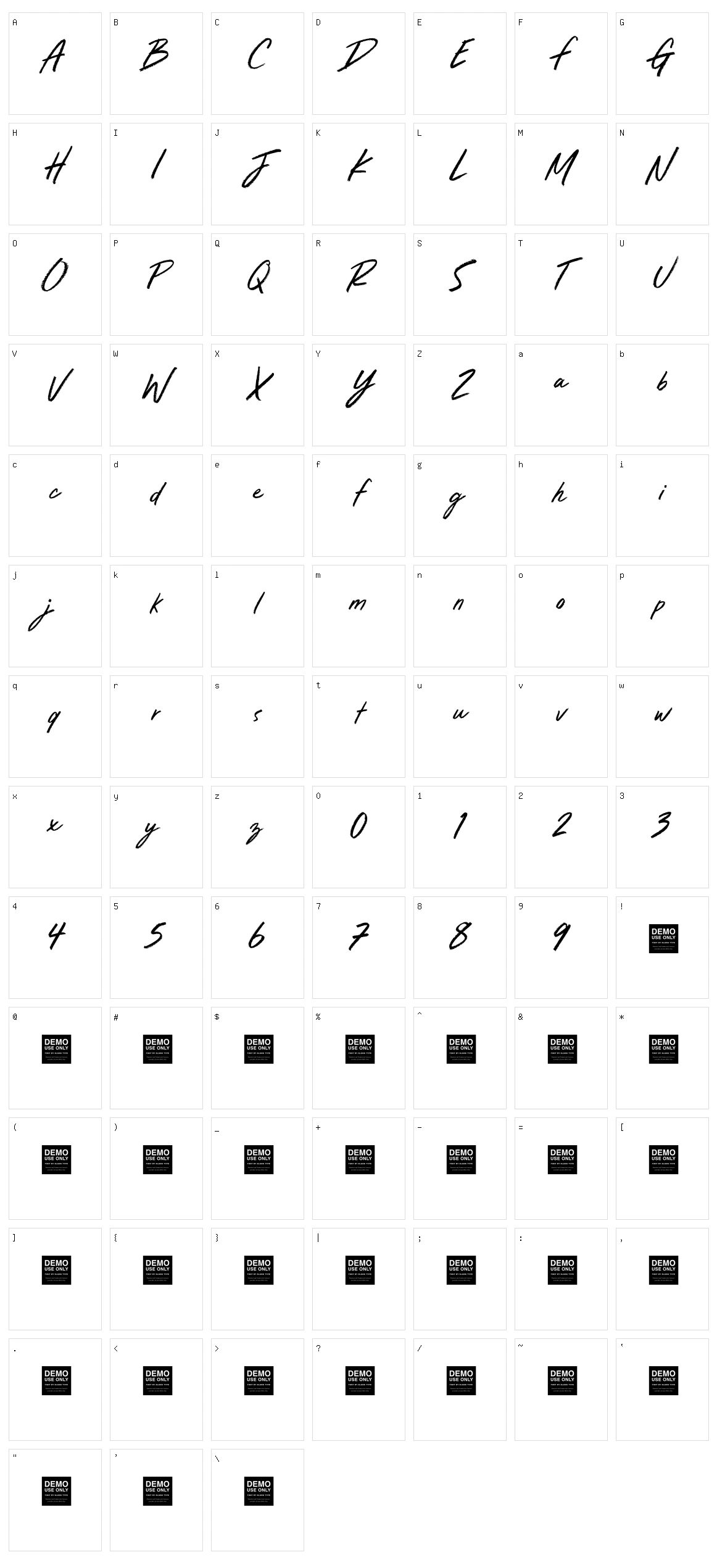
The free font Dream Light is carefully designed by BLKBK Fonts, showcasing a thoughtful balance of creativity and usability and falls under the Script font style. When you download the ZIP file, it contains only 162.7 KB of font files, making it lightweight and quick to download. Please review the license details below to understand permitted usage and distribution rights. If license information is not available, we recommend using this font for personal projects only or contacting the author directly for commercial usage permissions.